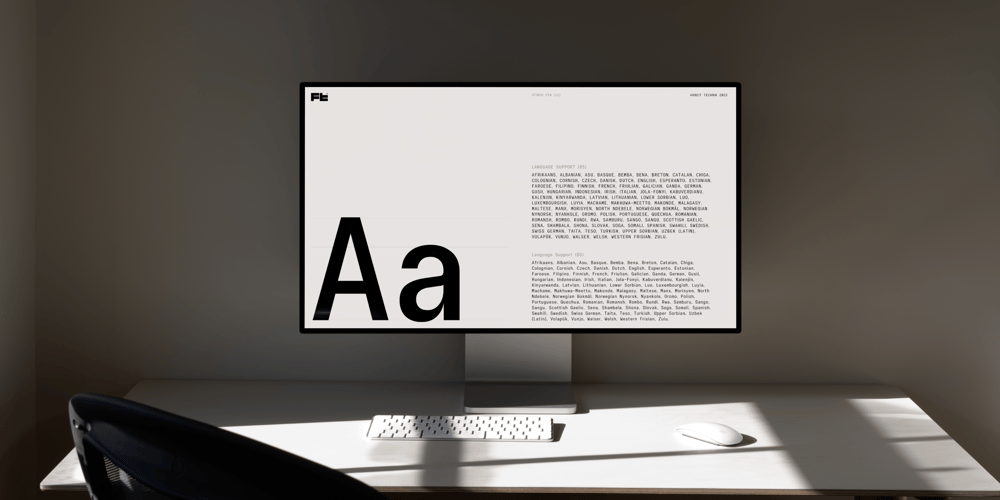
Arbeit Technik Font Family was designed by Samuel Oakes and published by Studio Few. Arbeit Technik contains 12 styles and family package options. Arbeit Technik, a semi-mono condensed variation of the Arbeit Pro typeface, is designed specifically for technical drawings and user interface applications. With a Stylistic Set that allows users to remove the ‘mono’ style serifs, this typeface offers versatility and a clean, professional appearance perfect for a variety of design projects.